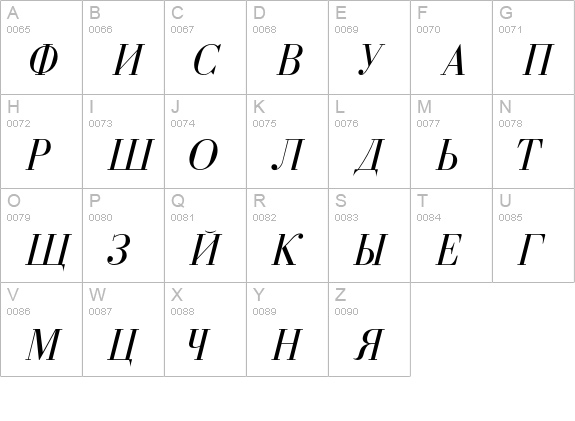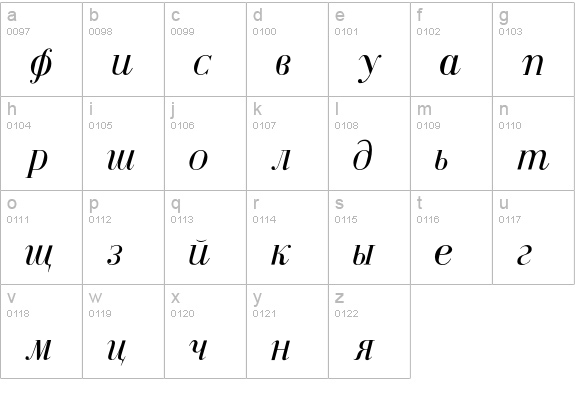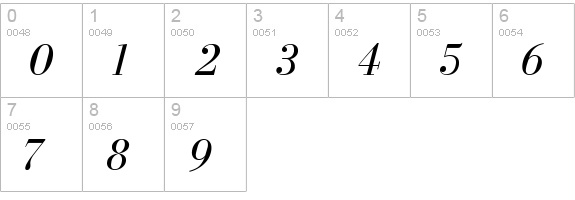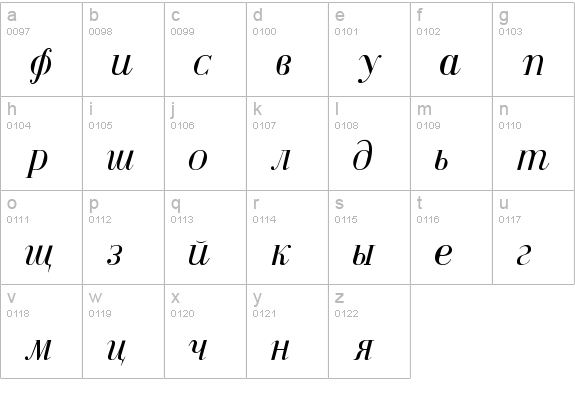
Ekaterina Font Details
Ekaterina font is a beautifully crafted typeface that exudes elegance and sophistication. With its stylish curves and clean lines, this font is perfect for adding a touch of class to any design project. Whether you're creating invitations, posters, or branding materials, Ekaterina font will surely elevate your work to the next level. The best part is that Ekaterina font is completely free to use! You can easily download this stunning typeface at FontsMarket.com and start incorporating it into your projects right away. Don't miss out on the opportunity to enhance your designs with the timeless beauty of Ekaterina font.